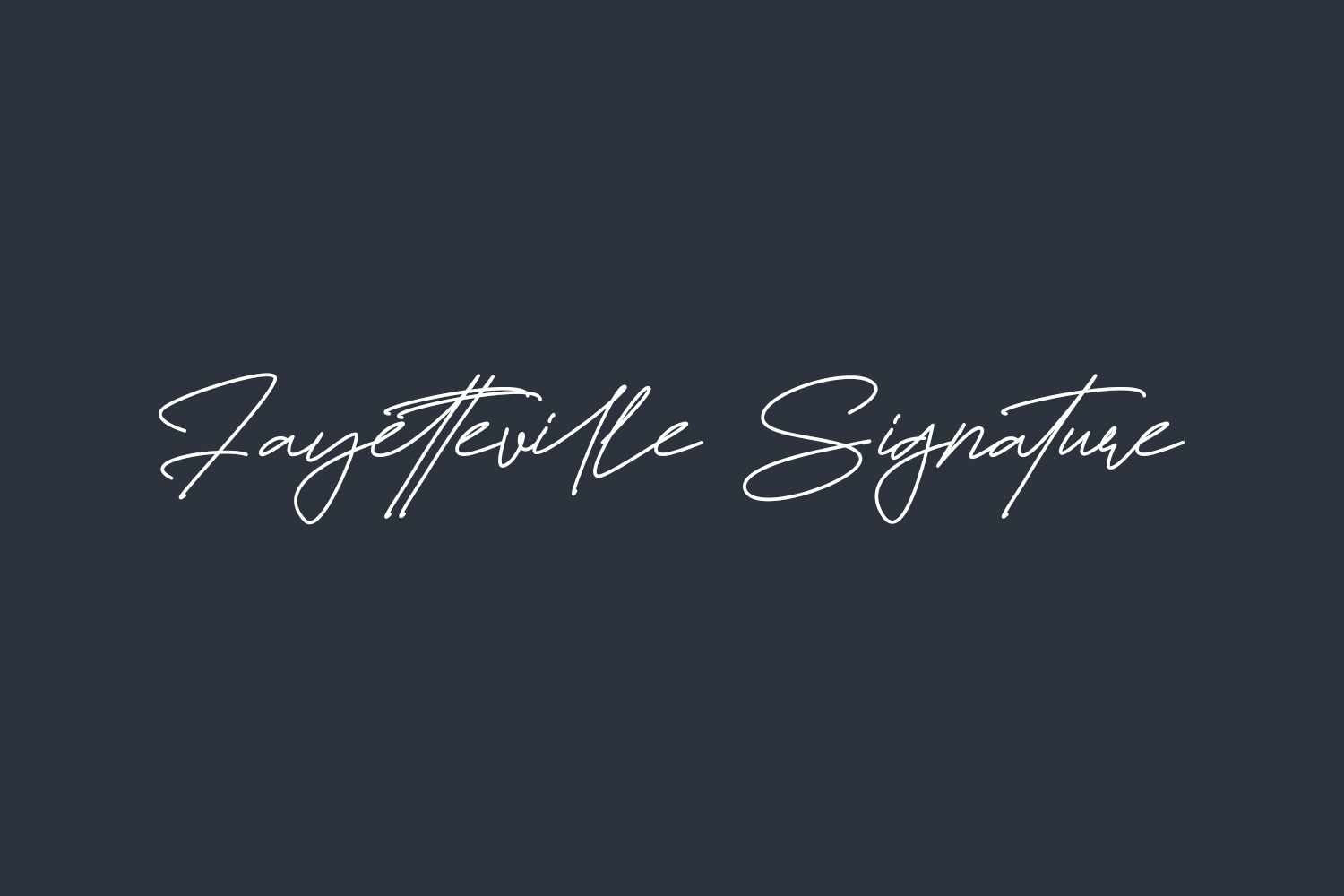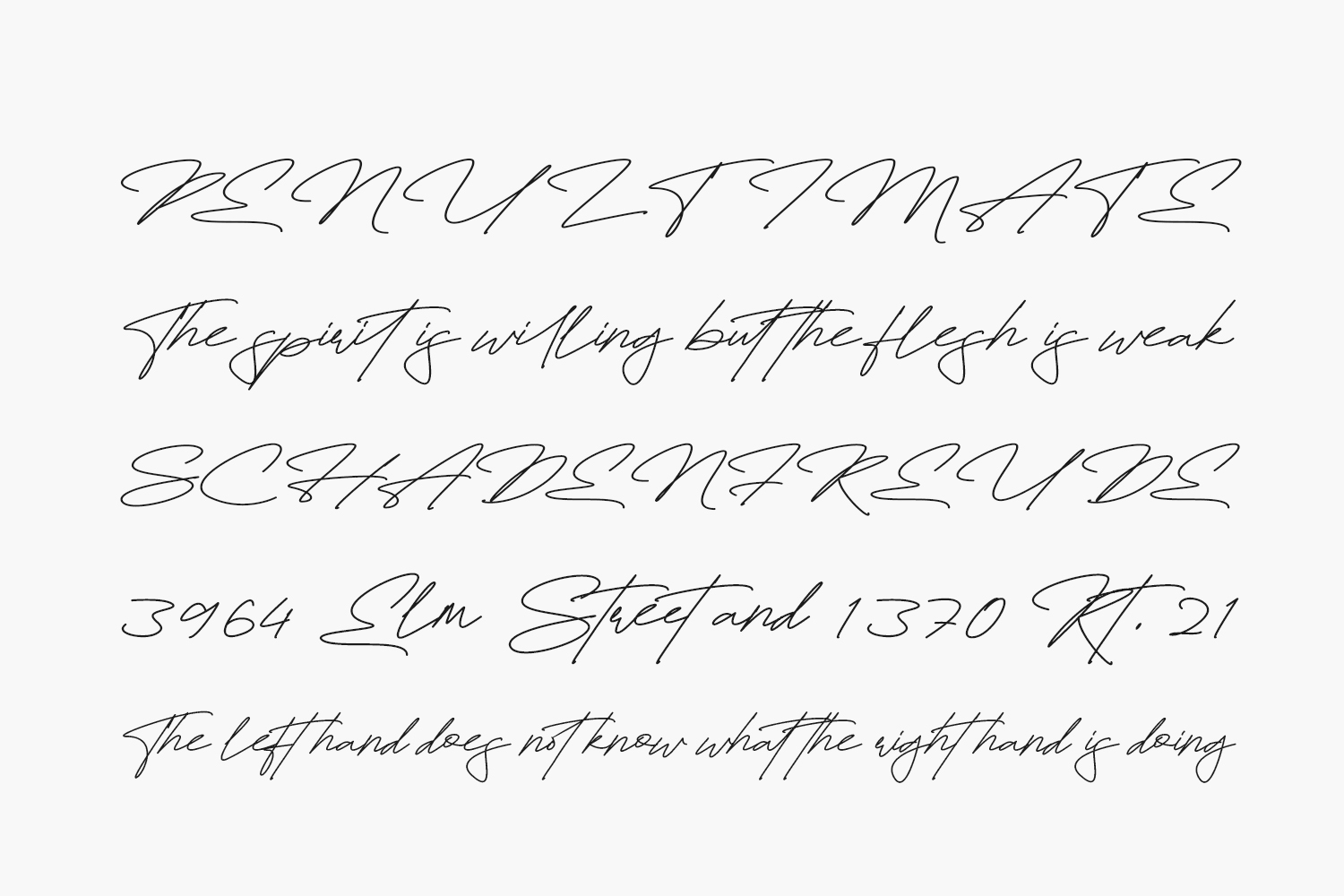
Elevate your design projects with Fayetteville Signature Free Font, an enchanting calligraphy typeface that gracefully dances along the baseline. Infused with romance and sweetness, this font brings a touch of luxury to any creative endeavor. Illuminate your designs with the captivating charm of Fayetteville Signature. Fayetteville Signature Free Font was designed by FinTypeStudio and is free for personal use only. Please purchase the full version for commercial use.